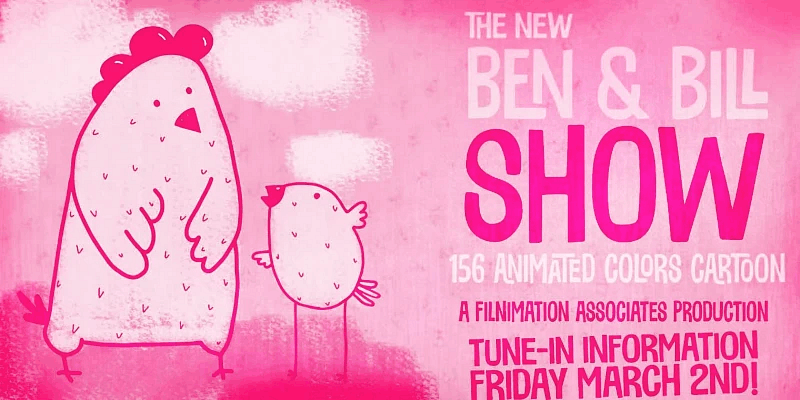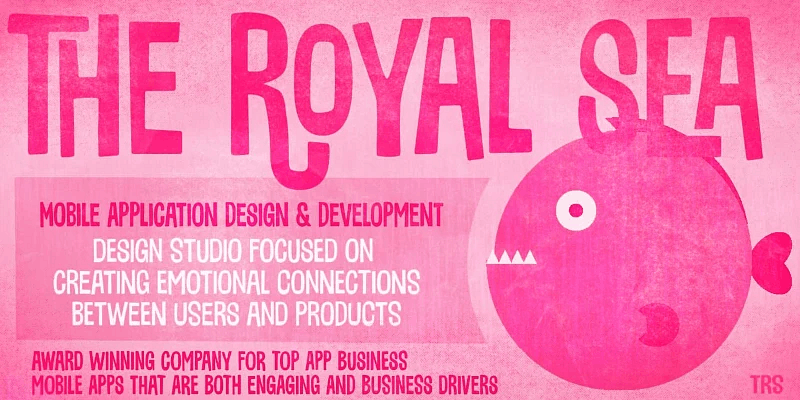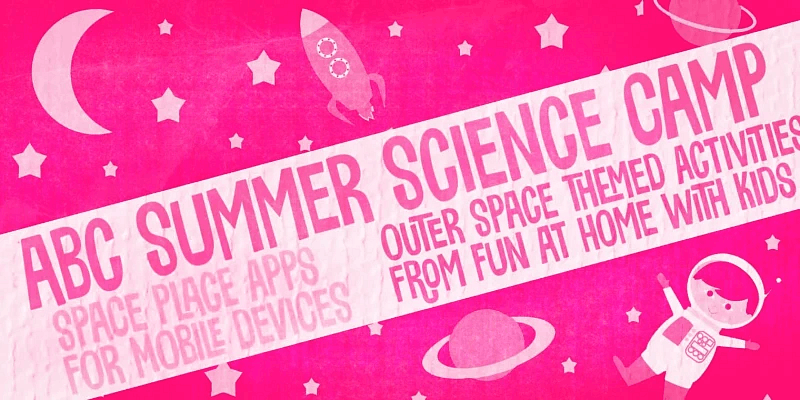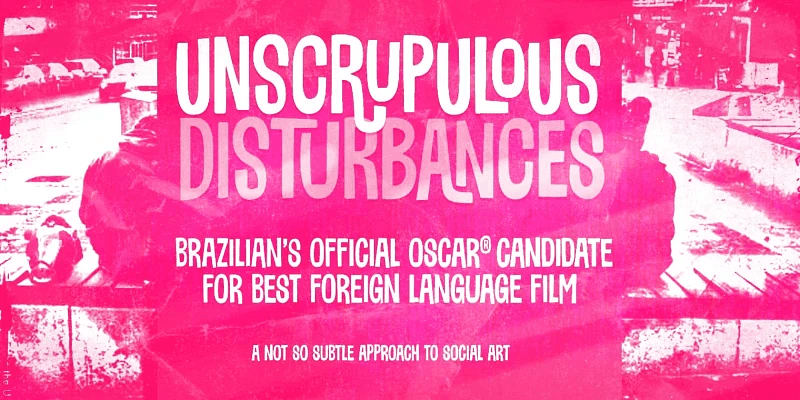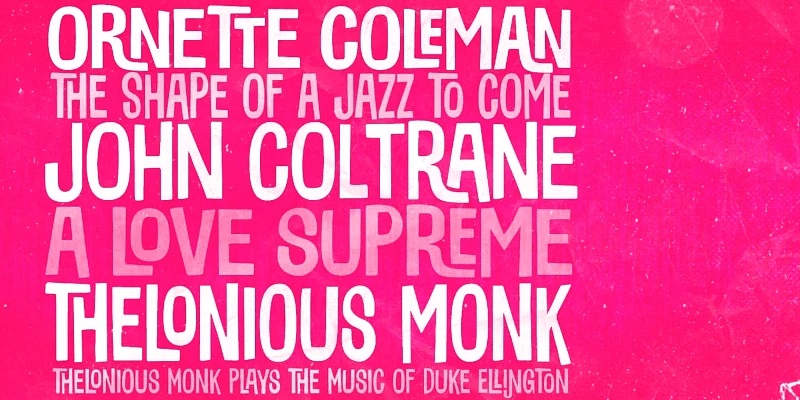
“Sunbeat is a quite groovy, hand-lettered display sans serif font. The irregularity of the letter shapes—available in three styles—gives it an upbeat, modern look and a downtempo, vintage vibe. Don’t miss the interlocking pairs for adding a quirky twist when you need it! Suitable projects would be toy packaging, food packaging, album covers, television titles, party invitations, and movie posters. But really, the possibilities are endless.